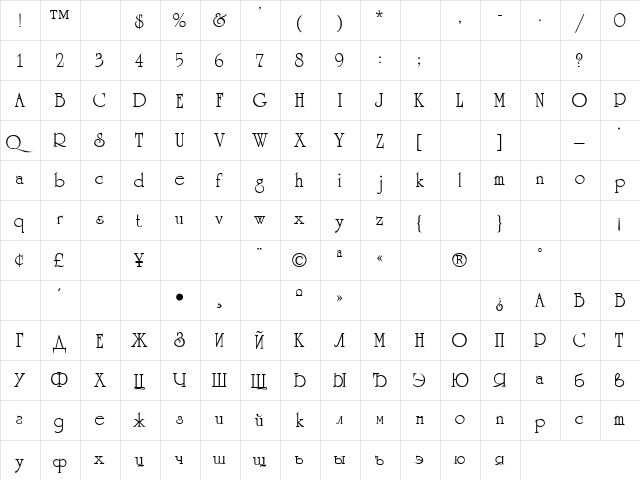
UniversityC Regular
Design Context for UniversityC Typeface
UniversityC takes a measured approach to typography — its balanced proportions and neutral character make it a reliable workhorse for both digital and print work.